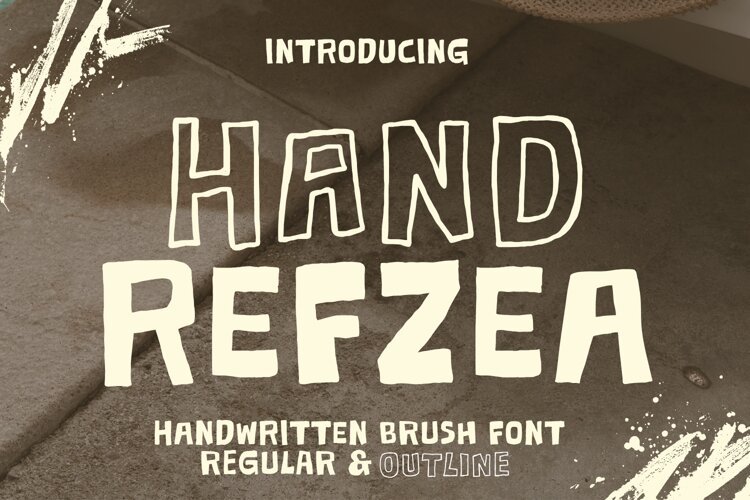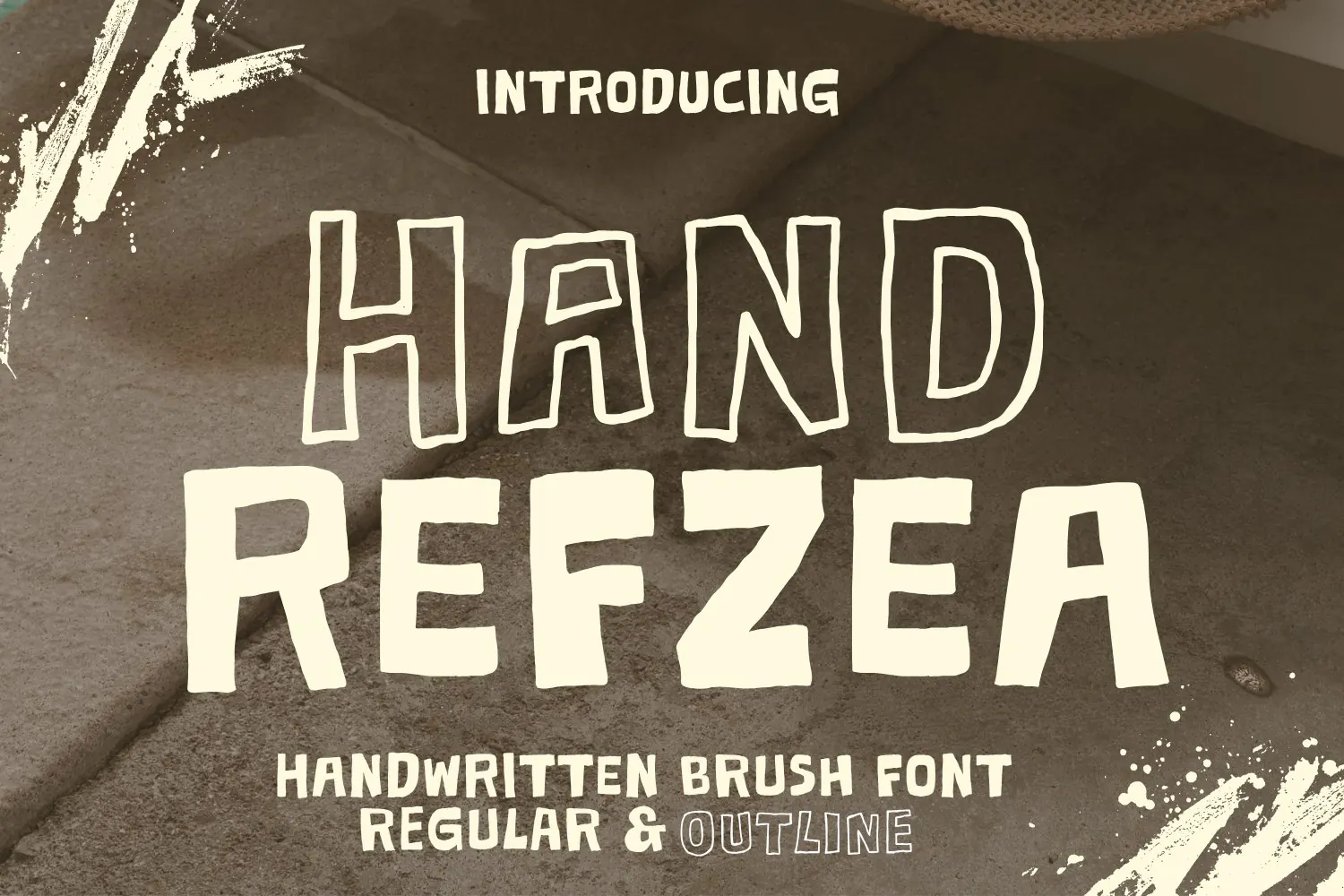
Introducing Hand Refzea, a dynamic and character-rich dual handwritten brush font, designed to bring raw energy and handmade originality to your designs. With a blend of casual, bold, and slightly rough aesthetics, this font is perfect for projects that require an authentic and modern street-style touch.